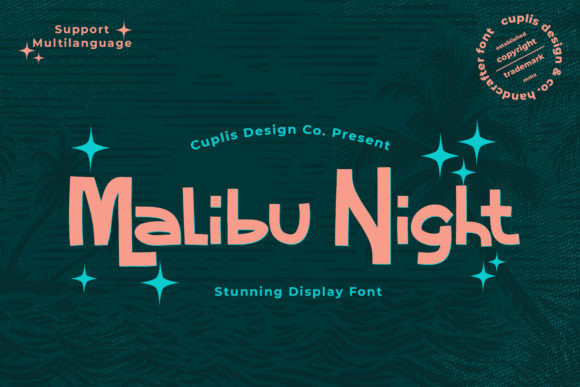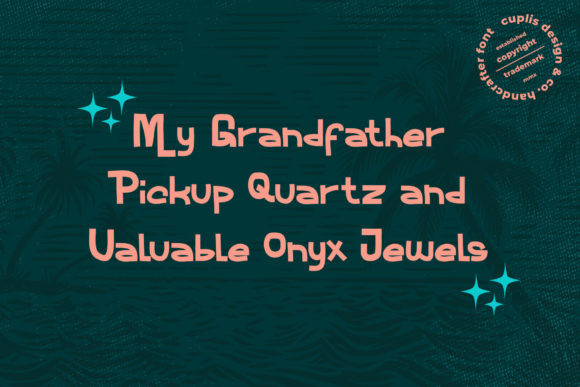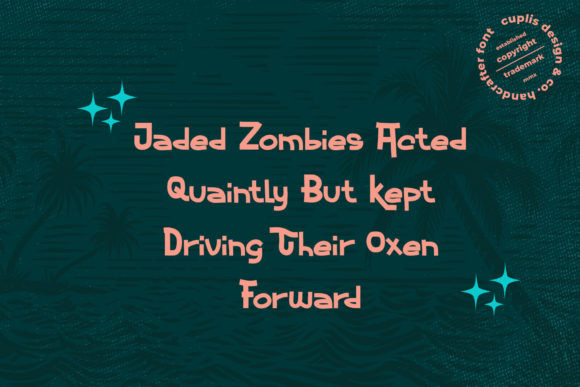
Malibu Night Font
Malibu Night is a simple, chunky lettered and neat lettered display font. Add this font to your creative ideas and notice how it will make them stand out!